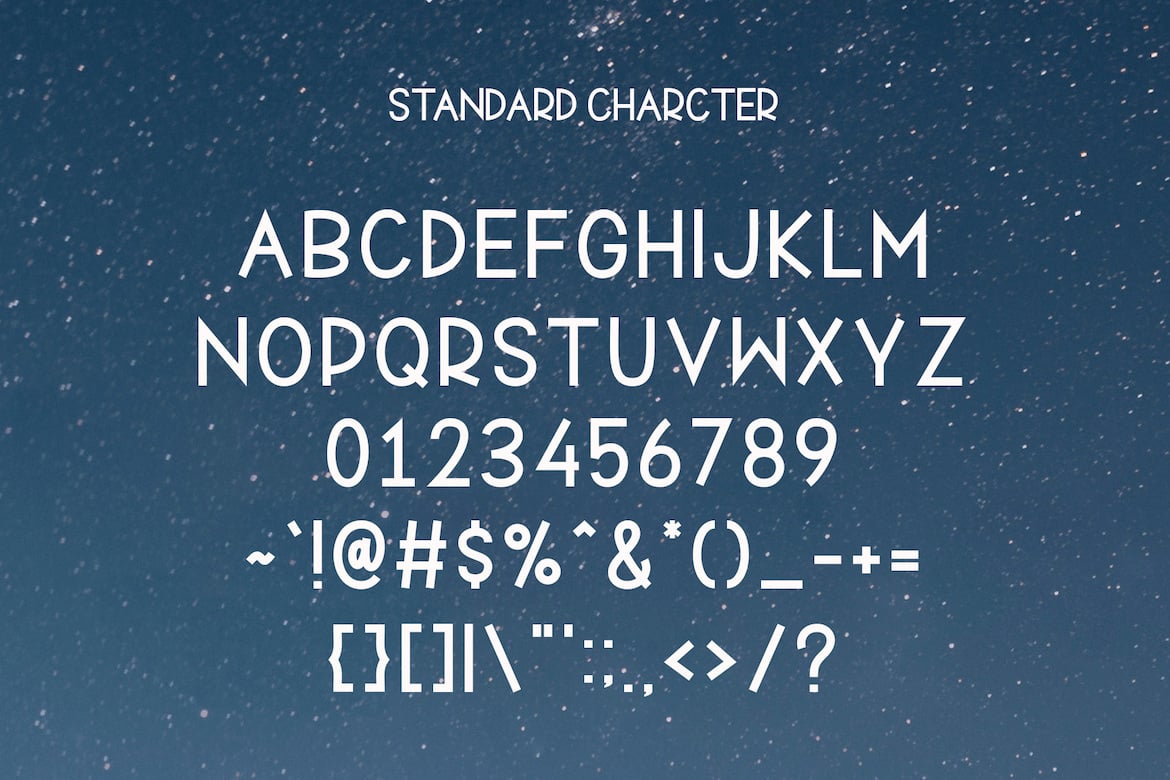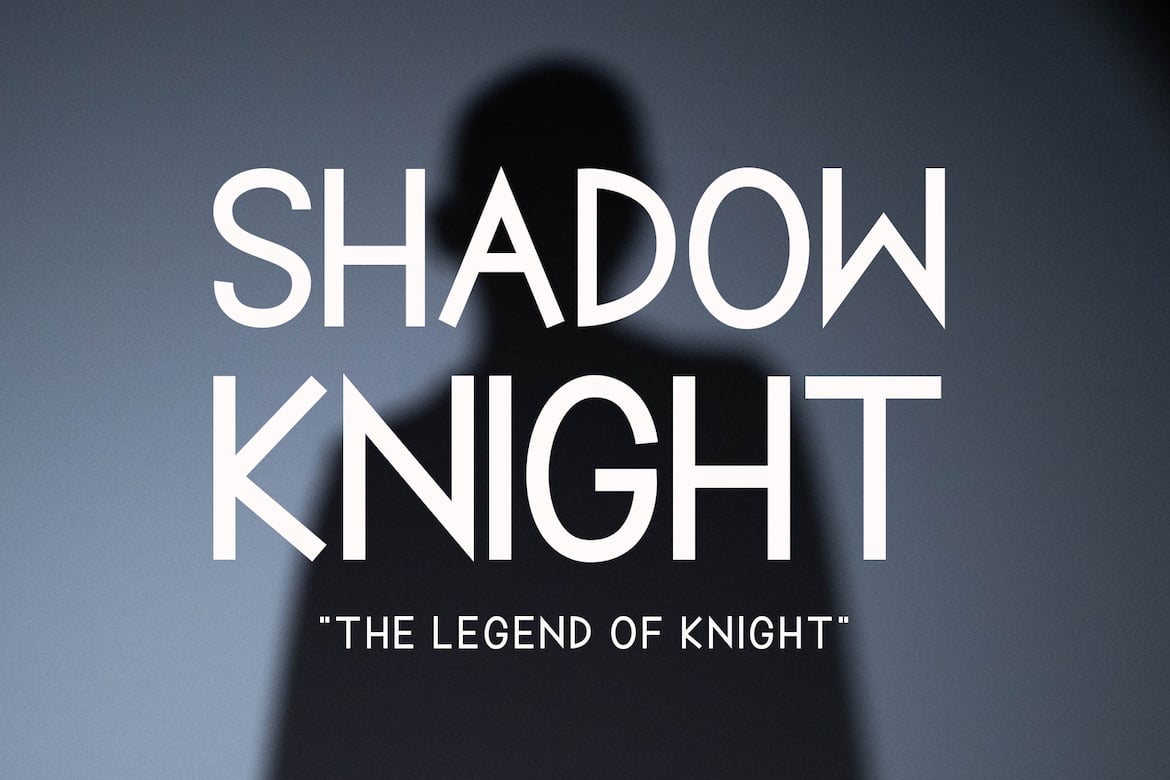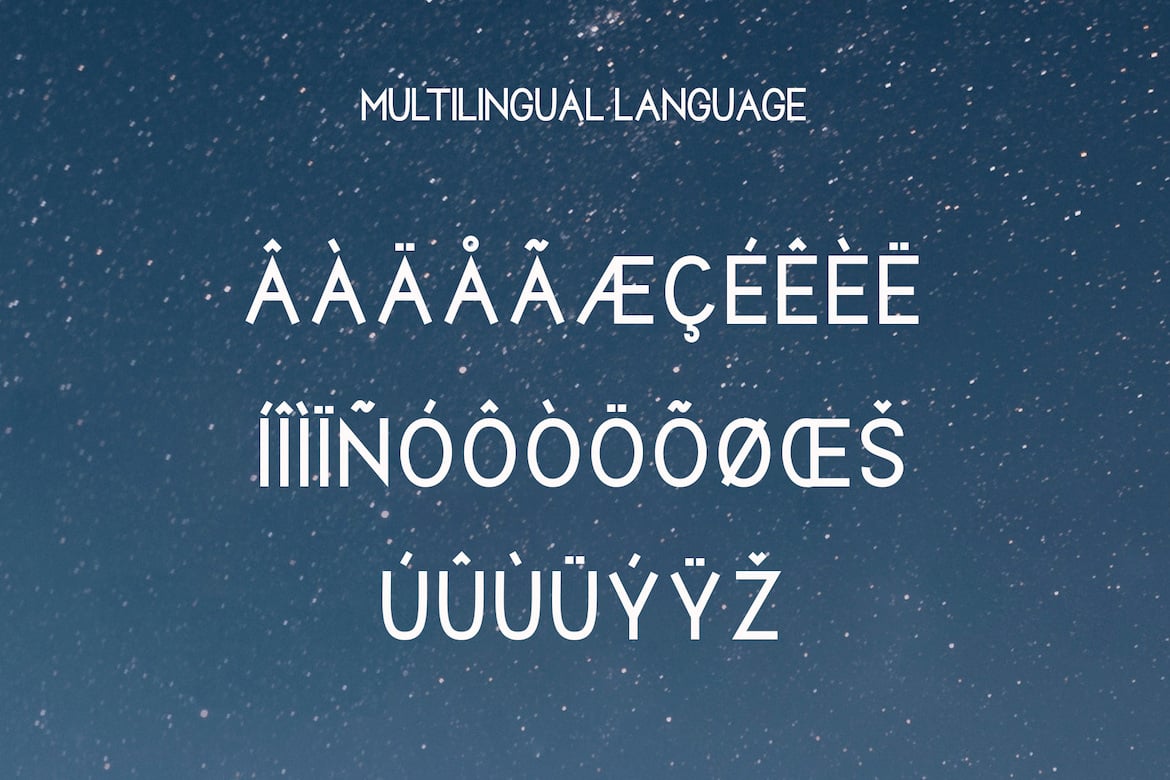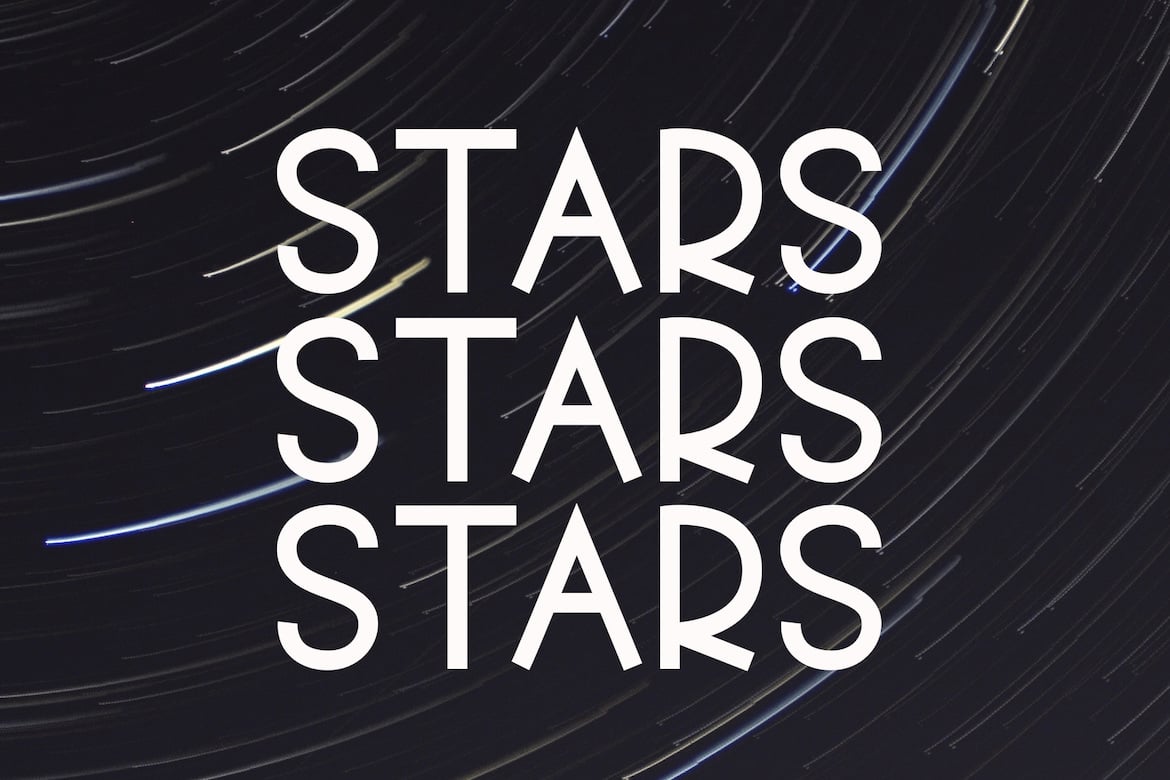
Super Heroes – Monoline Font
Super Heroes is a sleek and elegant monoline font, perfect for adding a refined touch to your design projects. Its versatility makes it ideal for a wide range of applications, including posters, property magazines, business cards, and more. Enhance your designs with the sophisticated simplicity of Super Heroes.